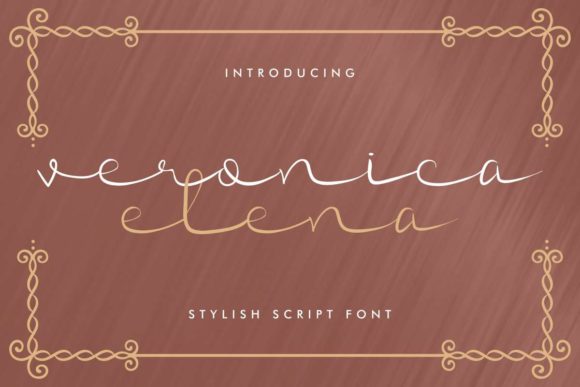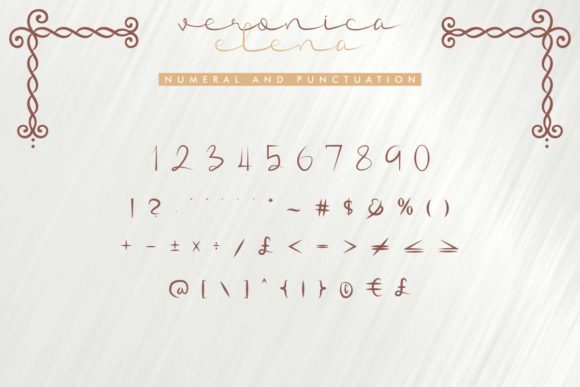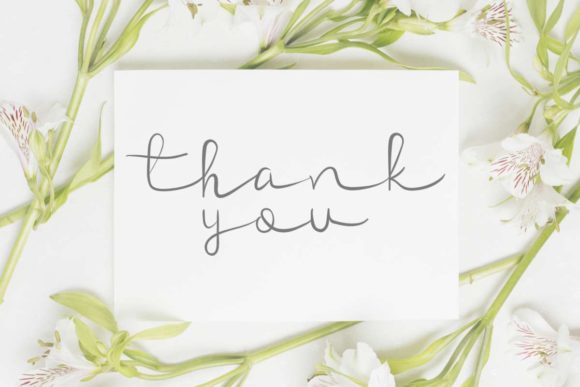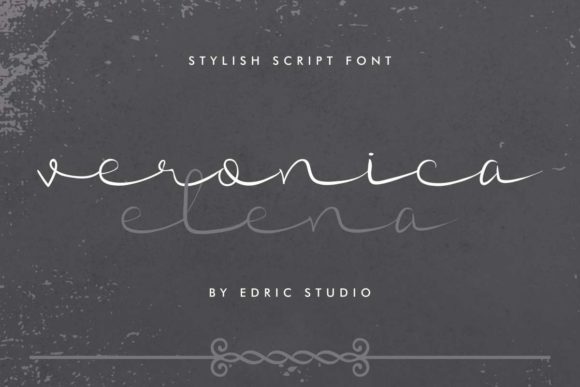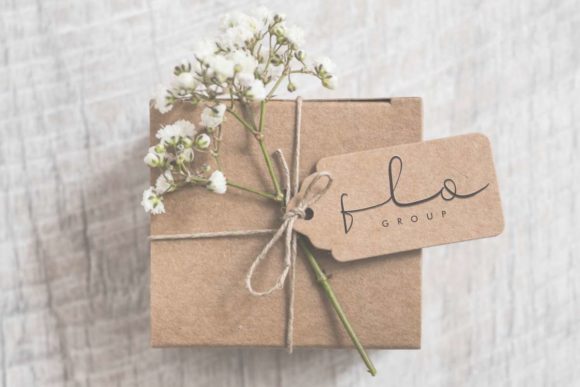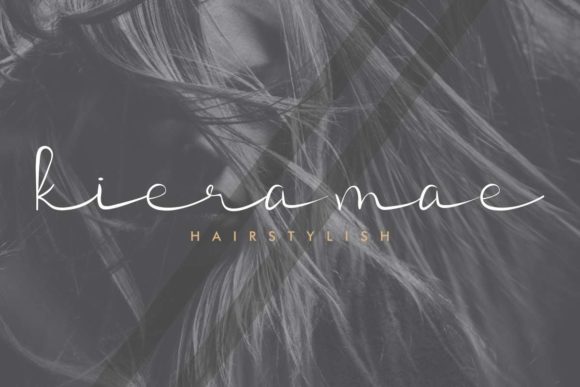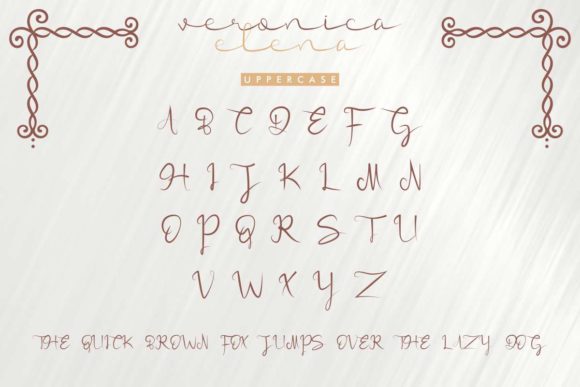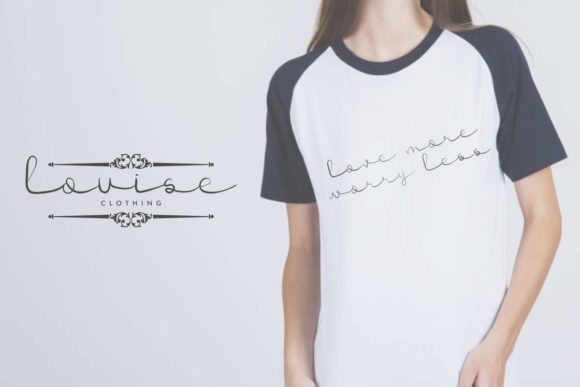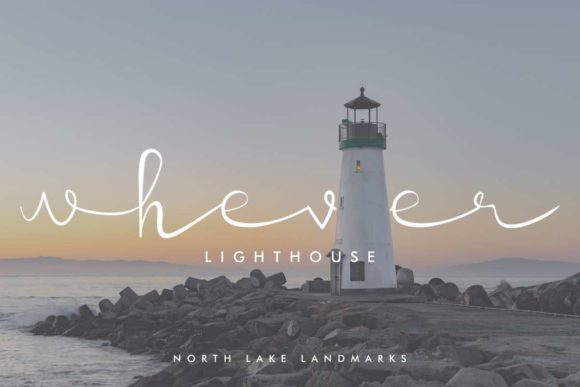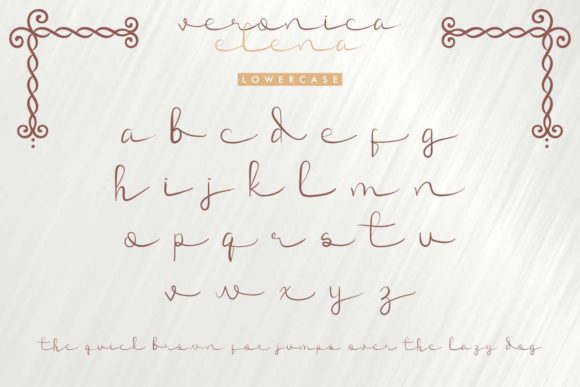
Veronica Elena Font
About Veronica Elena Font
Veronica Elena simplifies elegance into one truly outstanding handwritten font. Use this gorgeous and unique font to bring any DIY project to life!